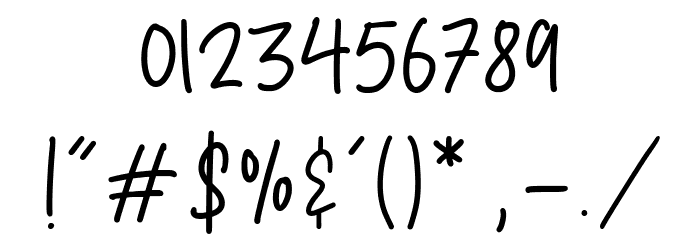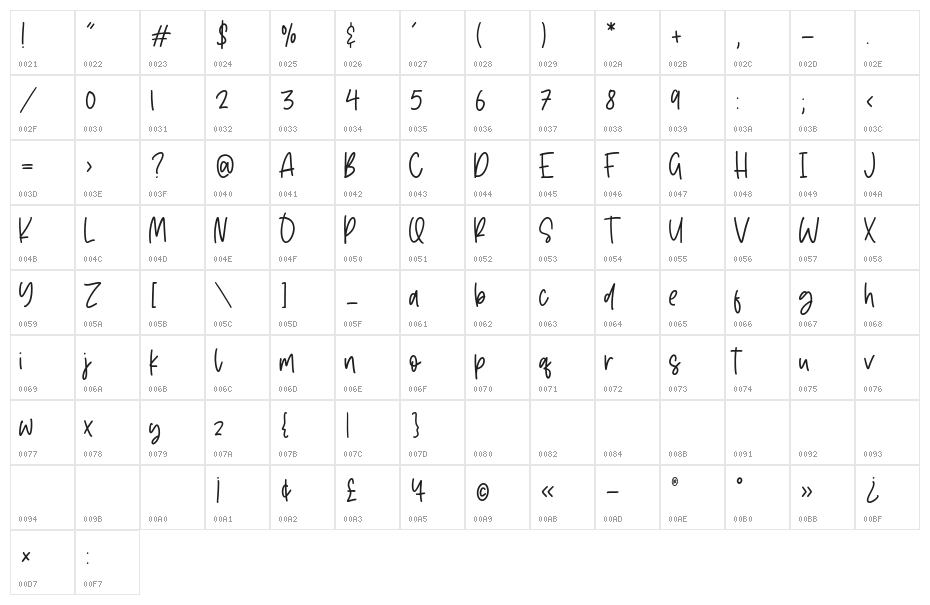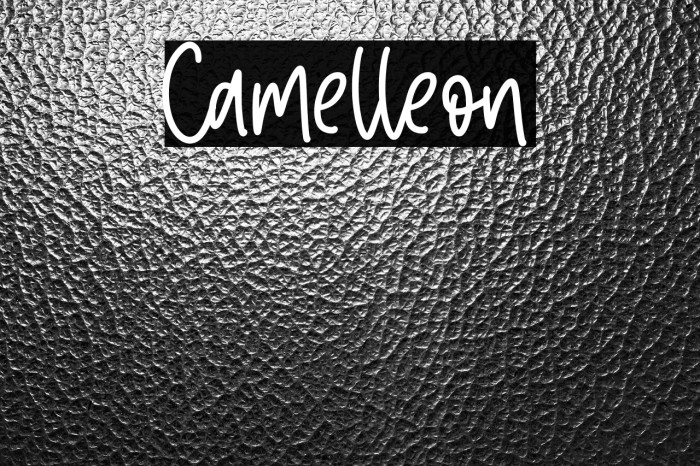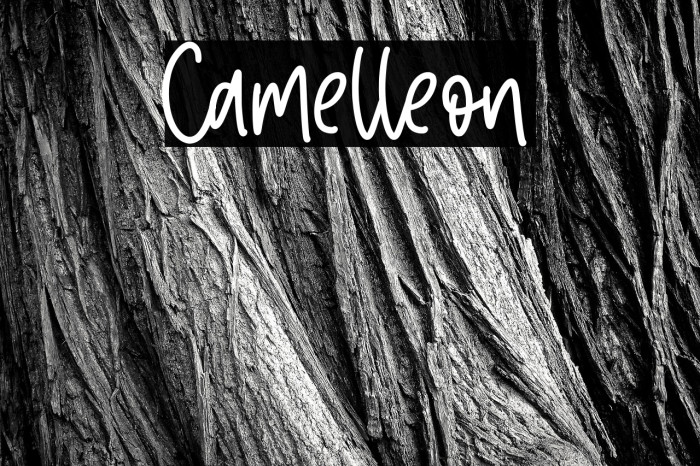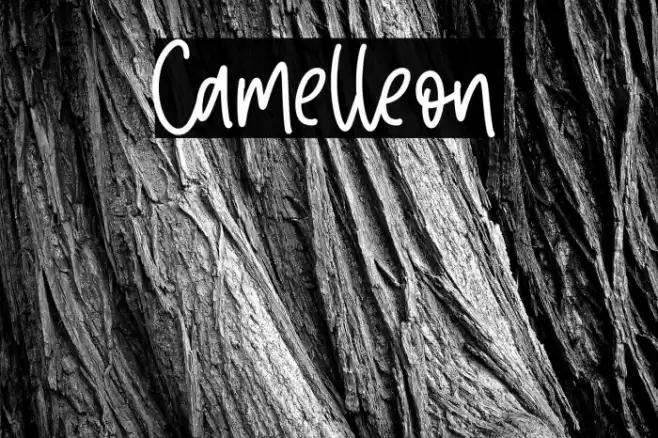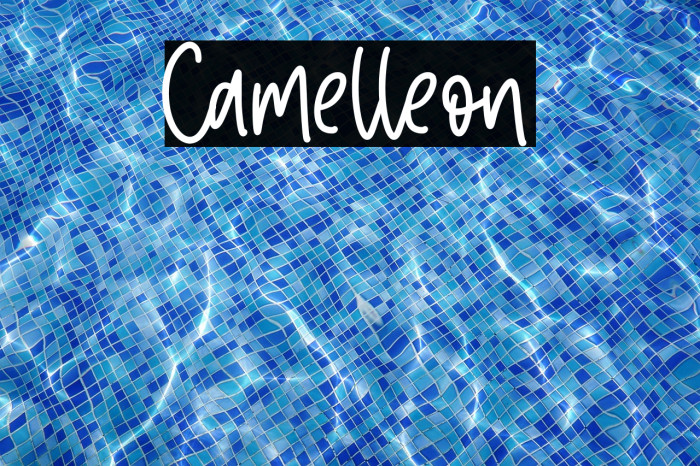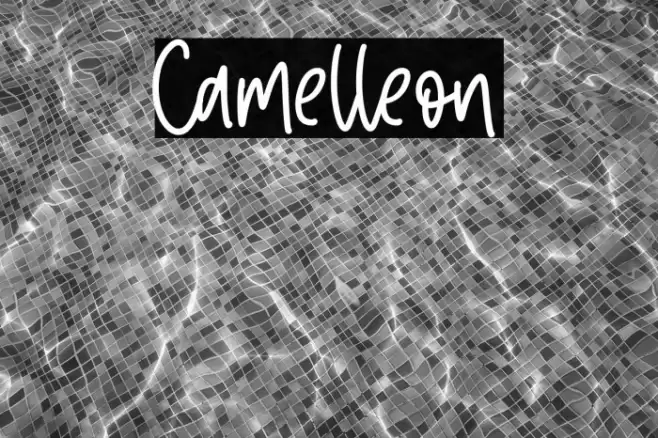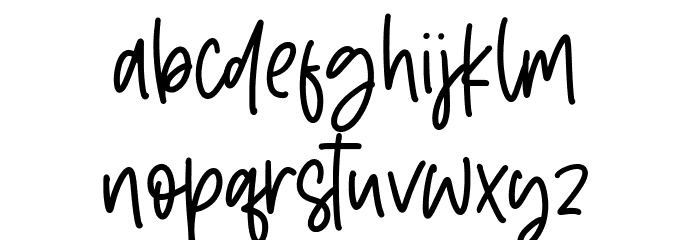
Camelleon Font
Camelleon Description
This font features a playful and casual handwritten style, characterized by its loose and flowing strokes. The letters are slightly slanted, giving it a dynamic and informal appearance. The uppercase and lowercase letters maintain a consistent style, with rounded edges and a smooth flow. Numbers and special characters are designed to match the overall aesthetic, ensuring a cohesive look across all text elements. The font's informal nature makes it suitable for projects that require a personal touch, such as invitations, greeting cards, and creative branding.
| Use Case | Headlines, Logos, Personal projects |
| Proposed Projects | Ideal for invitations, greeting cards, creative branding, and personal projects. |